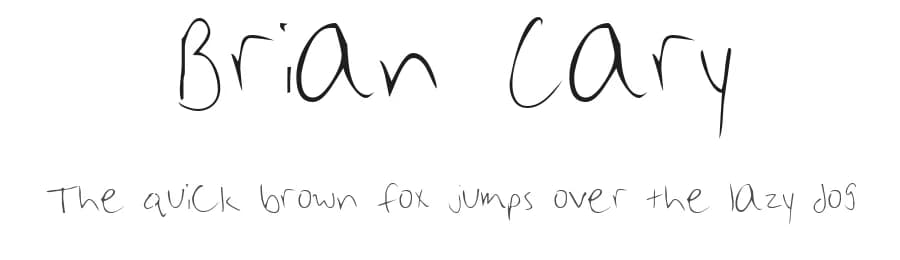
About Brian Cary Font
Brian Cary is a script & handwritten font designed by Marianfudge. It includes 99 glyphs, a regular weight, TTF (TrueType) format, and 104 languages. Brian Cary is free to download; check the license details on this page before commercial use. Script & handwritten fonts like Brian Cary work best for wedding invitations, greeting cards, signatures, and elegant branding.
Brian Cary Font is a script font that shines as a display or heading face. Pair it with a clean sans-serif or serif font for body text β the contrast creates a clear hierarchy while the two styles stay balanced and easy to read.
Brian Cary Font is a script handwritten typeface by Marianfudge, ideal for logos, invitations, branding, and creative projects.